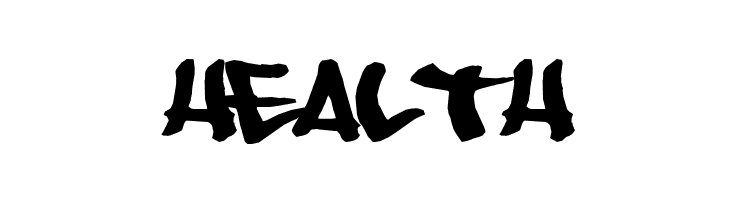
• Travel Soulmates Weight
A bold, geometric font with a vintage yet modern appeal, perfect for impactful headlines.
• Ubur Ubur with Love alternatif1
A whimsical, heart-adorned font with tall, slender characters and a modern flair.
• Ubur Ubur with Love alternatif2
A playful, heart-accented decorative font with elongated, narrow characters.
• Ubur Ubur with Love alternatif3
A whimsical, heart-embellished font with tall, narrow letters and thin strokes.
• Ubur Ubur with Love alternatif4
A playful, modern script font with elongated strokes and decorative dots.
• Valentine Brilliant
A bold, expressive brush-style font with dynamic, sweeping curves.
• Valentine Silhouette
A romantic and elegant script font with flowing, handwritten style.
• Valentine Wonder
A romantic, cursive font with flowing, elegant strokes and playful flourishes.
• Vanilla Mermaid
An elegant and flowing script font with intricate decorative letterforms.
• Via Vallen
An elegant script font with flowing lines and intricate swashes.